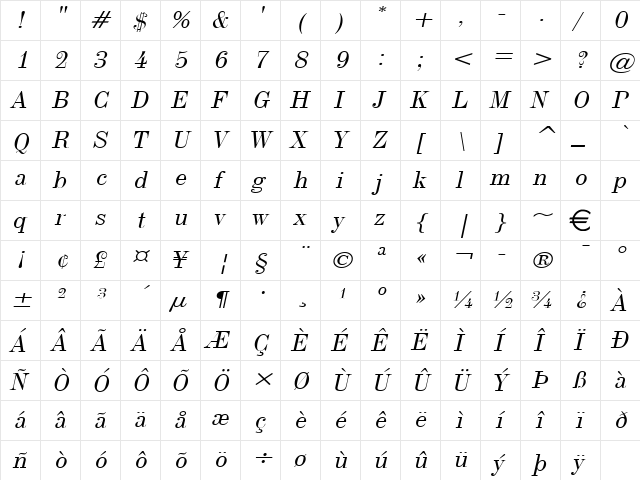
Indy17Wide Italic
Design Context for Indy17Wide Typeface
Indy17Wide is a composed and adaptable typeface that performs quietly and consistently across a wide range of design contexts. The dynamic lean of this cut emphasises speed and emphasis in any layout.
Pro Tip: Try Indy17Wide for annotation and caption copy alongside an upright companion — the contrast in angle creates a dynamic but ordered typographic system.